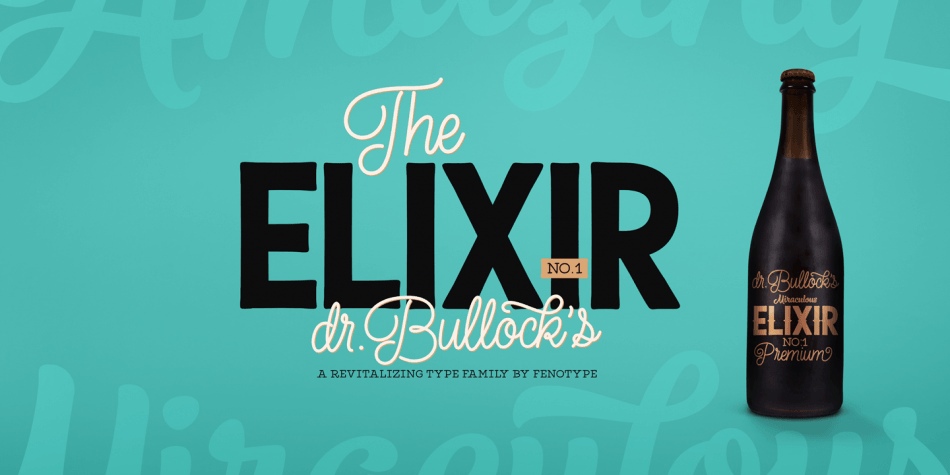
Elixir Font
Elixir Font is perfect for mystical branding projects, enchanting logo design, magical editorial layouts, fantasy book covers, potion packaging design, esoteric web typography, spiritual social media graphics, occult poster designs, and ethereal artistic installations. This captivating typeface works beautifully in both digital mysticism and print applications where otherworldly charm is desired.
What makes Elixir Font so exciting is its mesmerizing blend of alchemical inspiration and contemporary design sensibilities. The font features fluid, organic letterforms that seem to flow like liquid magic, with subtle decorative elements that evoke ancient manuscripts and mystical texts. Its enchanting character shapes and mysterious aura make it perfect for brands and projects seeking to capture the essence of transformation, mystery, and spiritual awakening while maintaining modern accessibility.
The Elixir Font family includes multiple stylistic variations ranging from ethereal light weights to bold mystical expressions, along with decorative alternates and special magical symbols. Each style within the family offers extensive character support including multilingual capabilities, ornamental elements, and unique ligatures that enhance the font's supernatural appeal.
This extraordinary typeface represents the perfect fusion of mystical aesthetics and practical typography. Whether you're developing spiritual brand identities, creating fantasy gaming interfaces, or designing metaphysical publications, Elixir Font Free Download delivers the magical atmosphere and versatility needed to transport your audience to enchanted realms. The font's mystical qualities make it particularly effective for wellness brands, spiritual advisors, fantasy entertainment, and alternative lifestyle businesses.
The carefully balanced proportions and flowing details in Elixir Font create a sense of movement and energy that captivates viewers. Its readable structure ensures clear communication while maintaining its supernatural charm, making it suitable for both body text in magical contexts and large display applications where its mystical character can truly shine and mesmerize audiences.